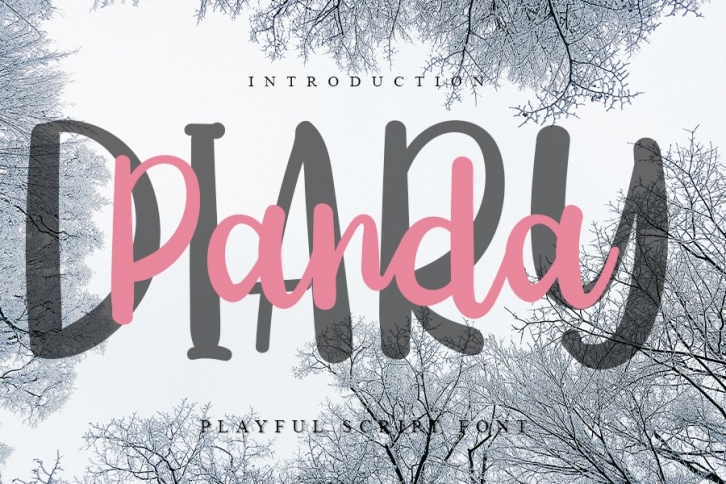
Diary Panda is a great font that was designed by InermediaSTUDIO. Imagine the amount of combinations you can create using this font! The archive is 18.6 MB and it was released on January 20, 2021. Diary Panda looks beautiful on wedding invitations, greeting cards, logos, posters, labels, t-shirt designs, logos, business cards and is perfect for use in ink or watercolor works, fashion, magazines, packaging and food menus, children's books and more!